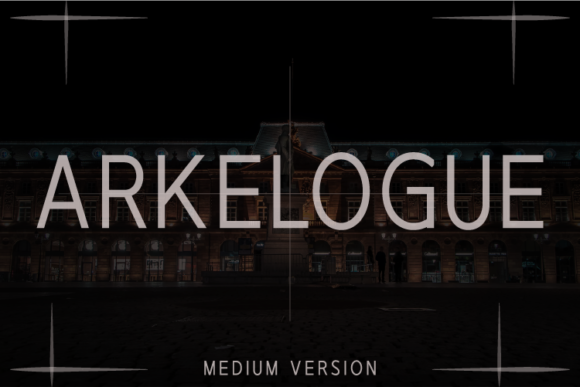
Arkelogue Medium Font
Arkelogue, the impeccable sans serif font family by Huntype, offers a vast range of 10 distinct weights, from the delicate Thin to the bold Extra Black, granting you the boundless freedom to tailor your designs to absolute perfection.
Immerse yourself in the pristine elegance of Arkelogue Medium, a weight that exudes sophistication and clarity. Its meticulously crafted letters dance across the page, captivating the eye with their graceful curves and impeccable spacing, creating an aesthetic masterpiece that transcends the boundaries of ordinary fonts.
Whether you're a seasoned designer or a budding enthusiast, Arkelogue Medium is your secret weapon for crafting captivating headlines, alluring website copy, and mesmerizing social media posts. Its versatile nature empowers you to effortlessly elevate any project, from formal invitations to playful posters, ensuring that your messages radiate an air of unmistakable class and allure.
Indulge in the boundless possibilities that Arkelogue Medium unlocks. Its versatility extends seamlessly across all your creative endeavors, empowering you to weave captivating narratives that resonate with your audience. Create stunning logos that leave an indelible mark, design brochures that entice and inform, and craft presentations that command attention with effortless grace.
Arkelogue Medium is more than just a font; it's an indispensable tool for designers seeking to elevate their creations to new heights of excellence. Its timeless beauty and unwavering reliability make it the perfect choice for any project that demands a touch of sophistication and understated elegance.
Embrace the boundless versatility of Arkelogue Medium and embark on a creative journey that knows no bounds. Let its crisp lines and enchanting curves inspire you to create designs that captivate, inform, and leave a lasting impression.